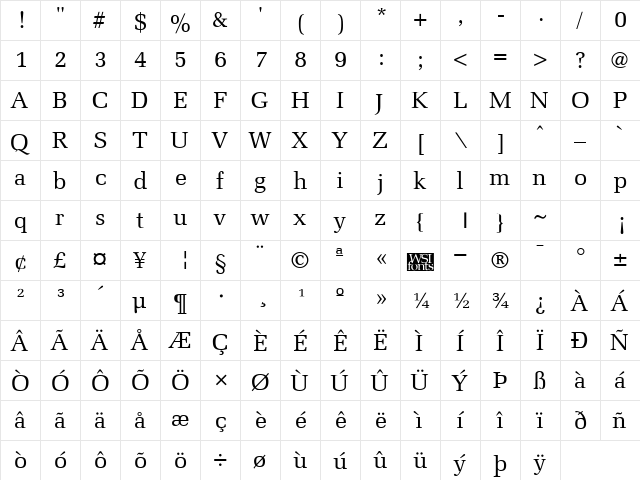
Memoir Regular
Design Context for Memoir Typeface
Memoir is a composed and adaptable typeface that performs quietly and consistently across a wide range of design contexts.